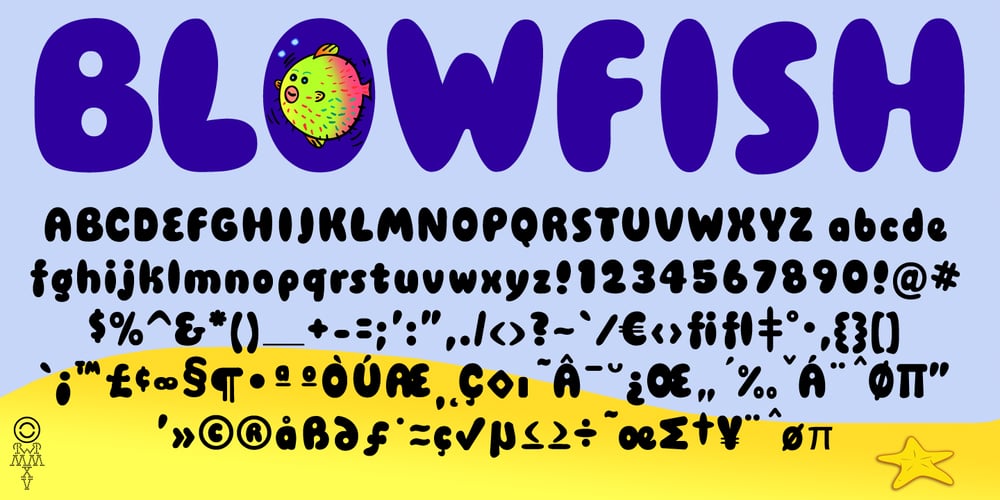
Blowfish
Blowfish font
Blowfish Font Family was designed by published by Robert Petrick. Blowfish contains 1 styles and family package options. “Blowfish” is an easy to set, easy to read, font. It is one of my most popular fonts. Good for anything, Print & Digital Media Bold Headlines, Product & Pagkaging, Websites etc.